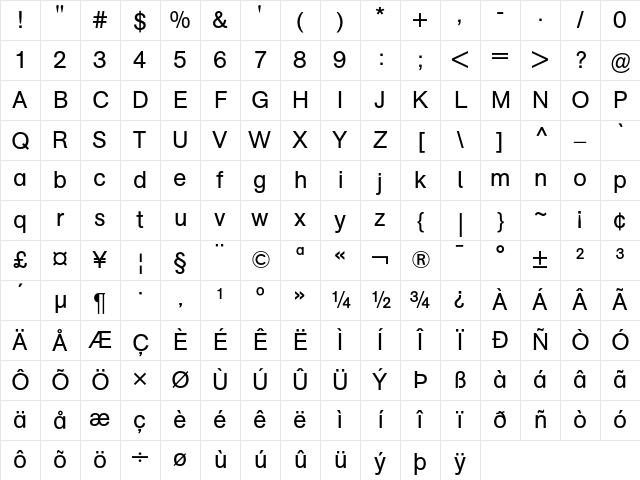
AG Schoolbook Regular A Free Font
AG Schoolbook Regular A
Design Context for AG Schoolbook
AG Schoolbook is a composed and adaptable typeface that performs quietly and consistently across a wide range of design contexts.